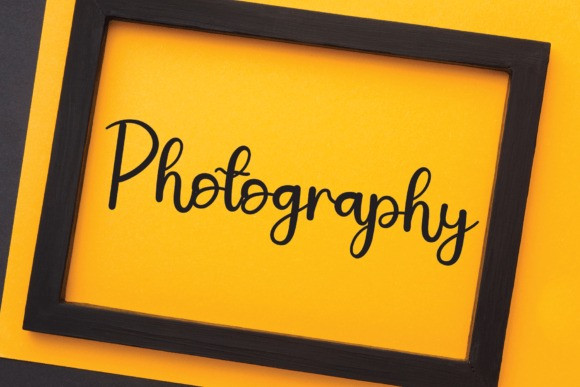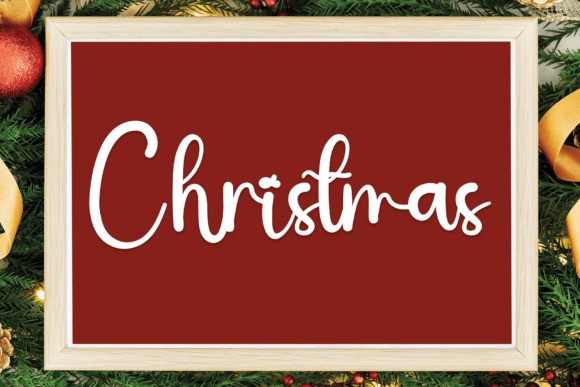
How Are You Font
How Are You Font is a simple and friendly handwritten font. Whether you’re using it for crafts, digital design, presentations, or creating greeting cards, this font has the potential to become your go-to font, whatever the occasion.